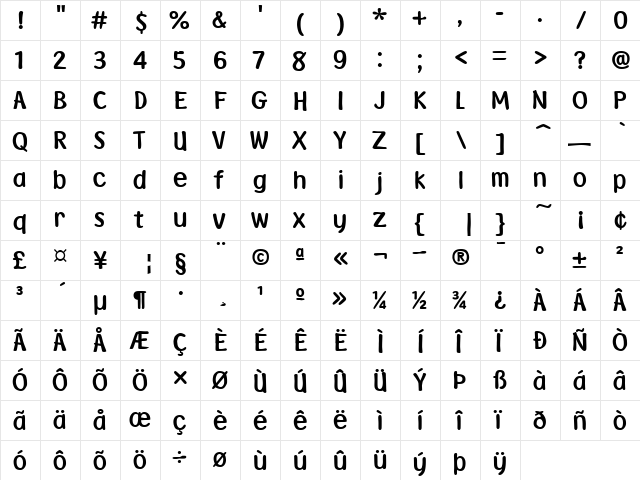
Pooh Regular
Design Context for Pooh Typeface
Pooh is a composed and adaptable typeface that performs quietly and consistently across a wide range of design contexts.